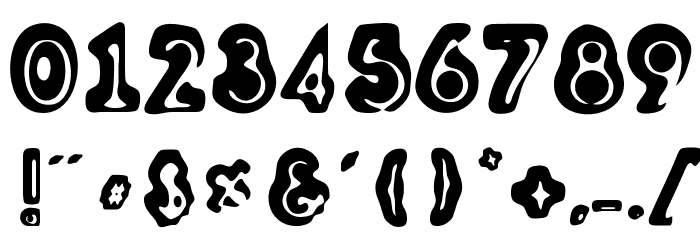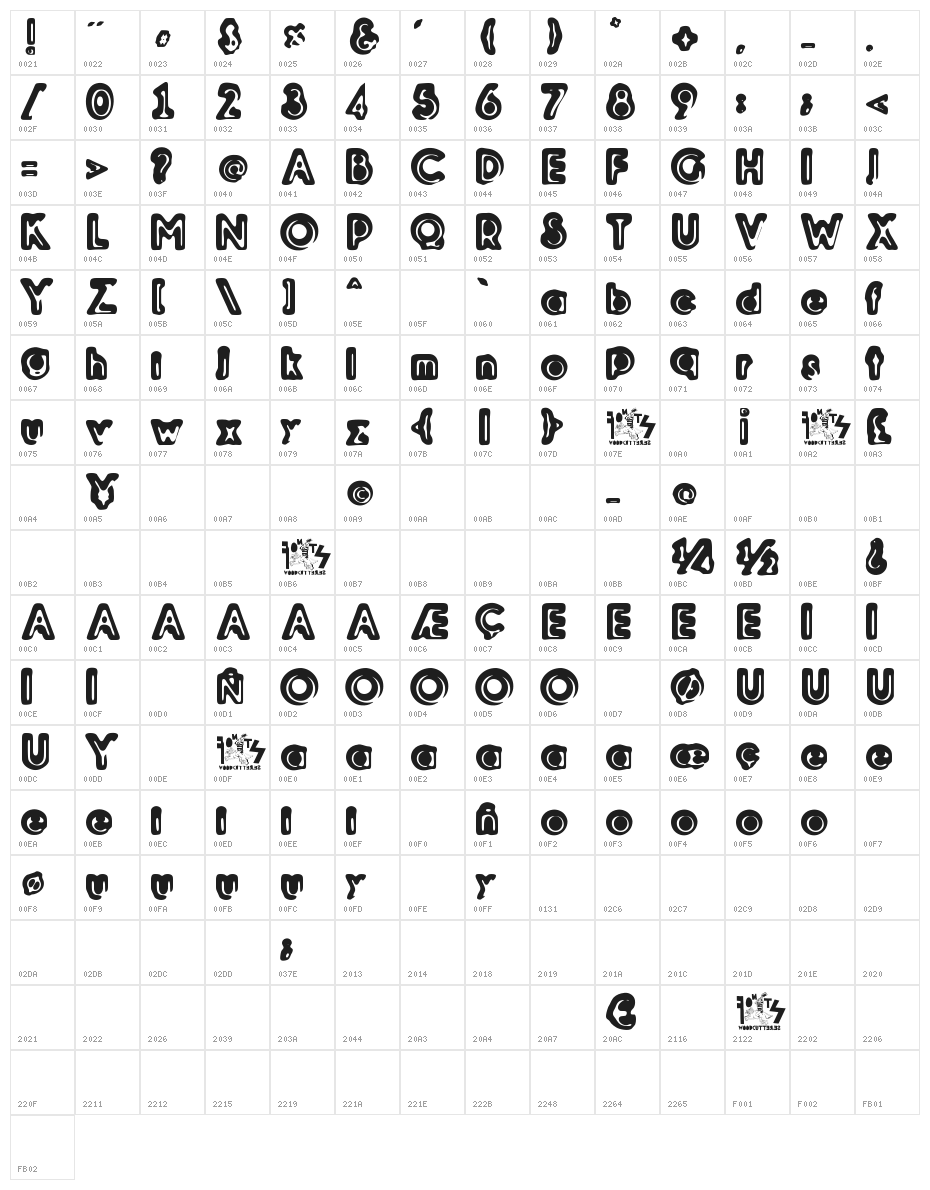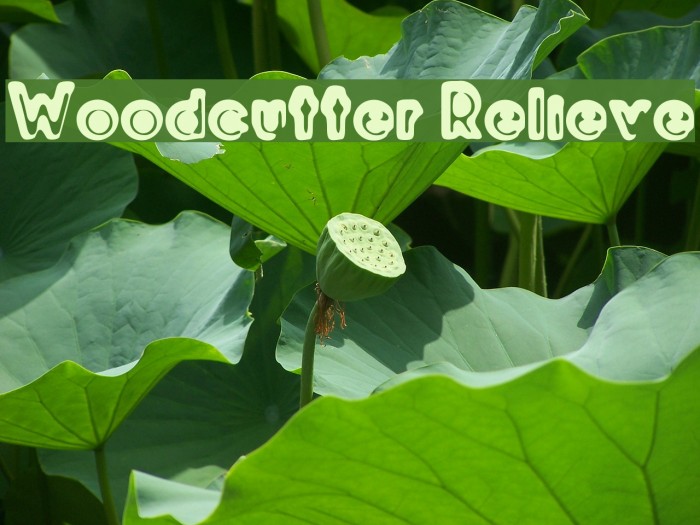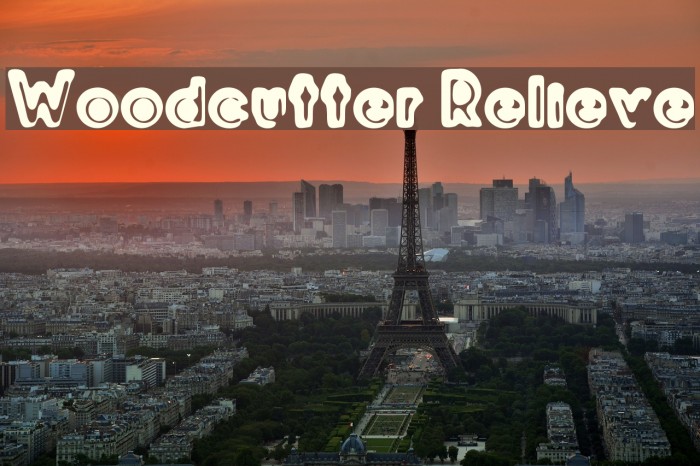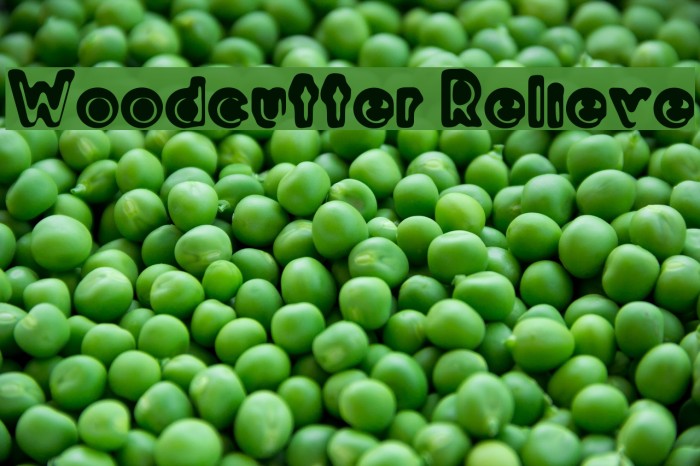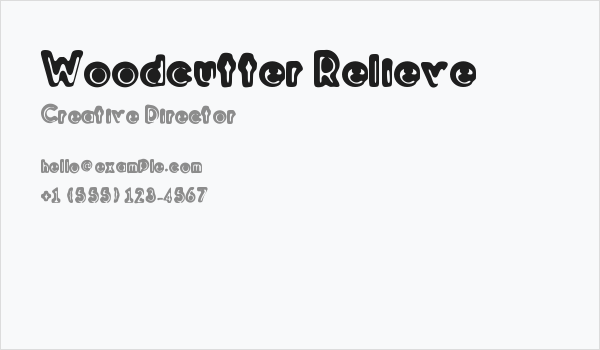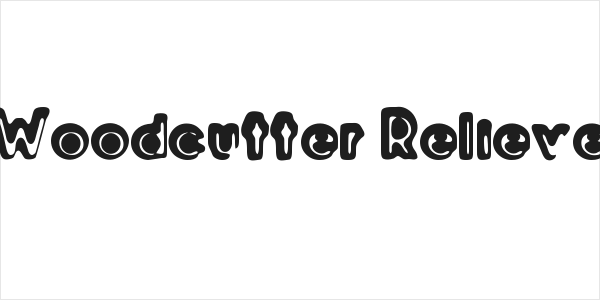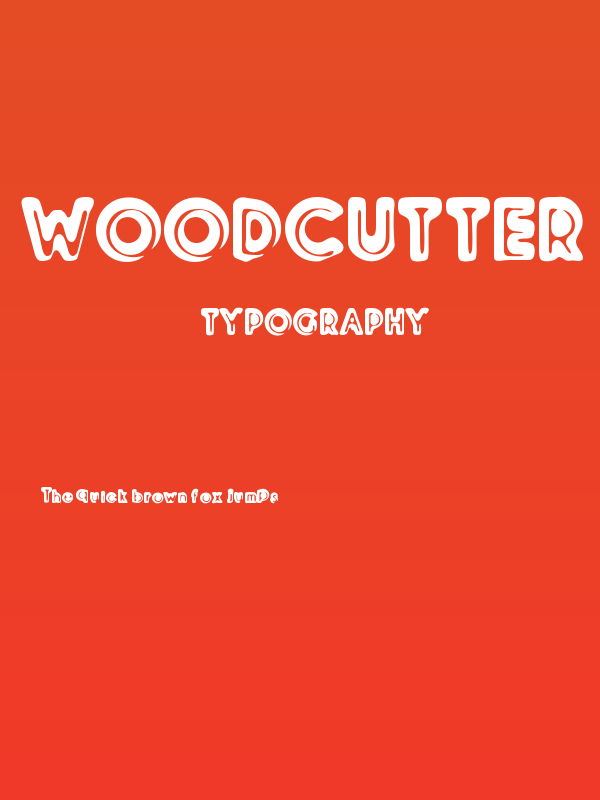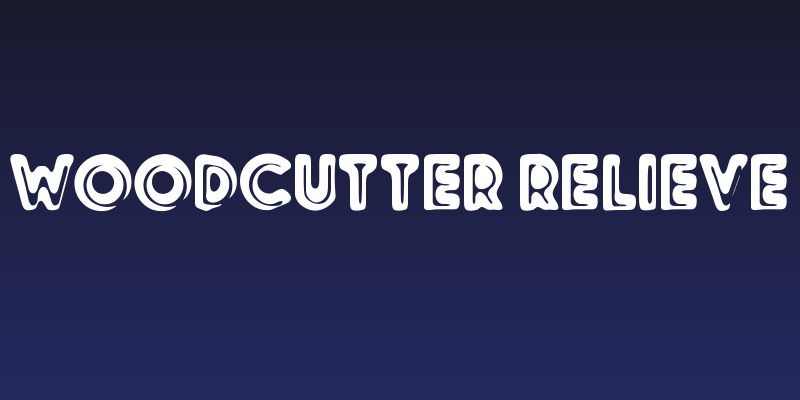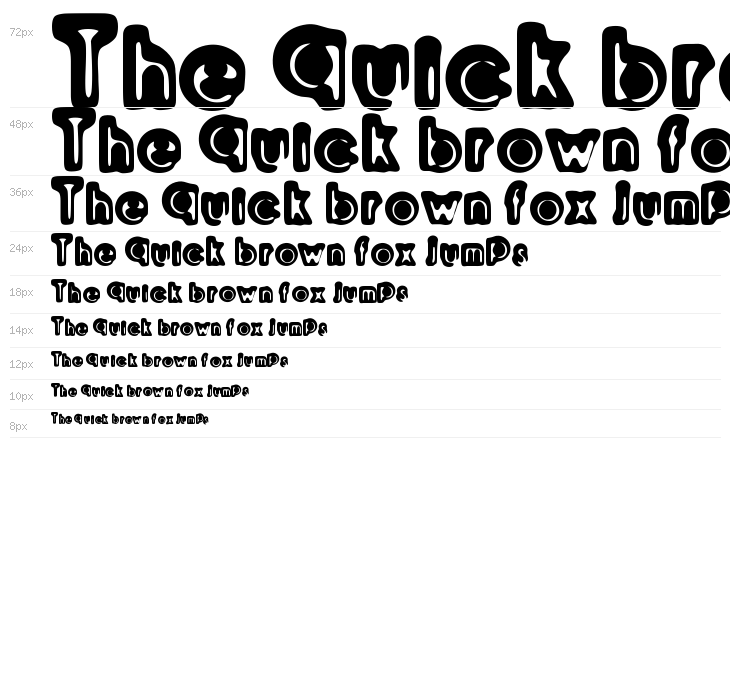
Woodcutter Relieve Font
Woodcutter Relieve Description
This font features a bold, playful design with a three-dimensional effect that gives each character a sense of depth and shadow. The letters are rounded and thick, with a whimsical and artistic flair that makes them stand out. The unique cut-out style within each character adds a layer of complexity and visual interest, making it ideal for creative and eye-catching designs. The numbers and special characters follow the same playful and bold aesthetic, ensuring consistency across all elements.
Proposed ProjectsIdeal for children's book covers, playful branding, posters, and creative advertising campaigns.